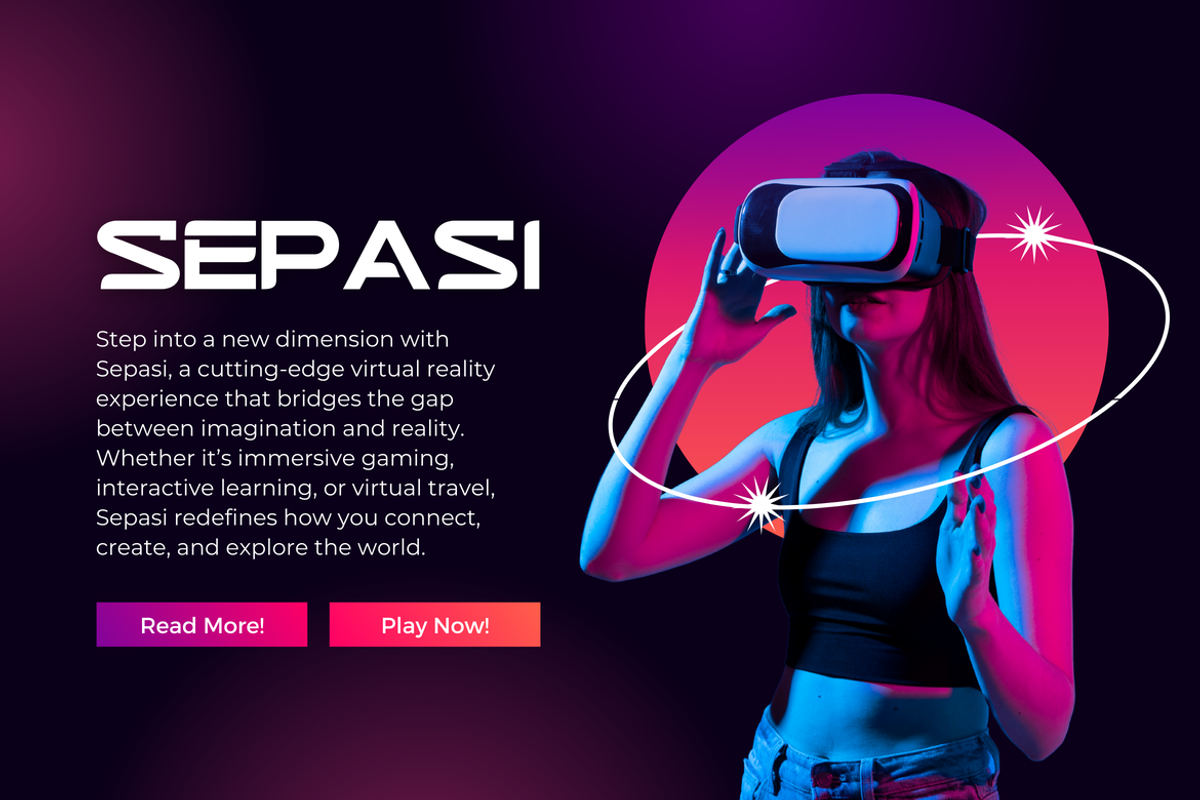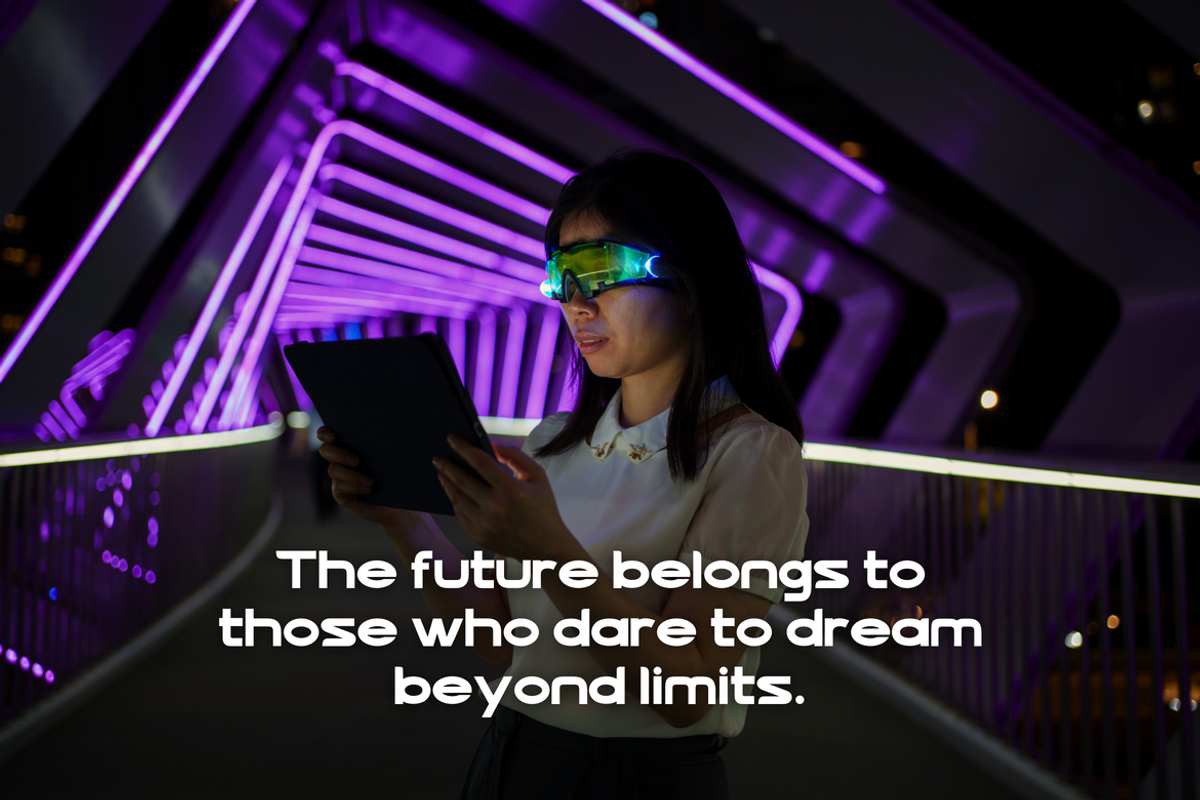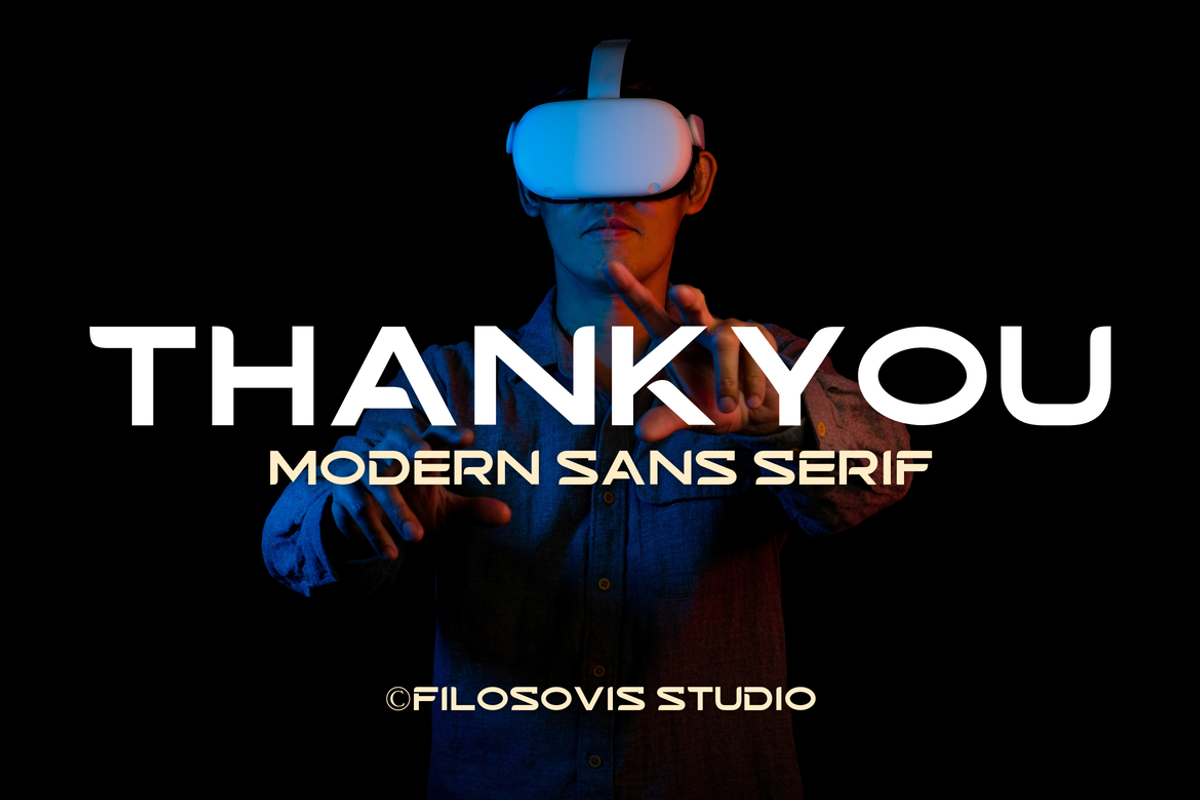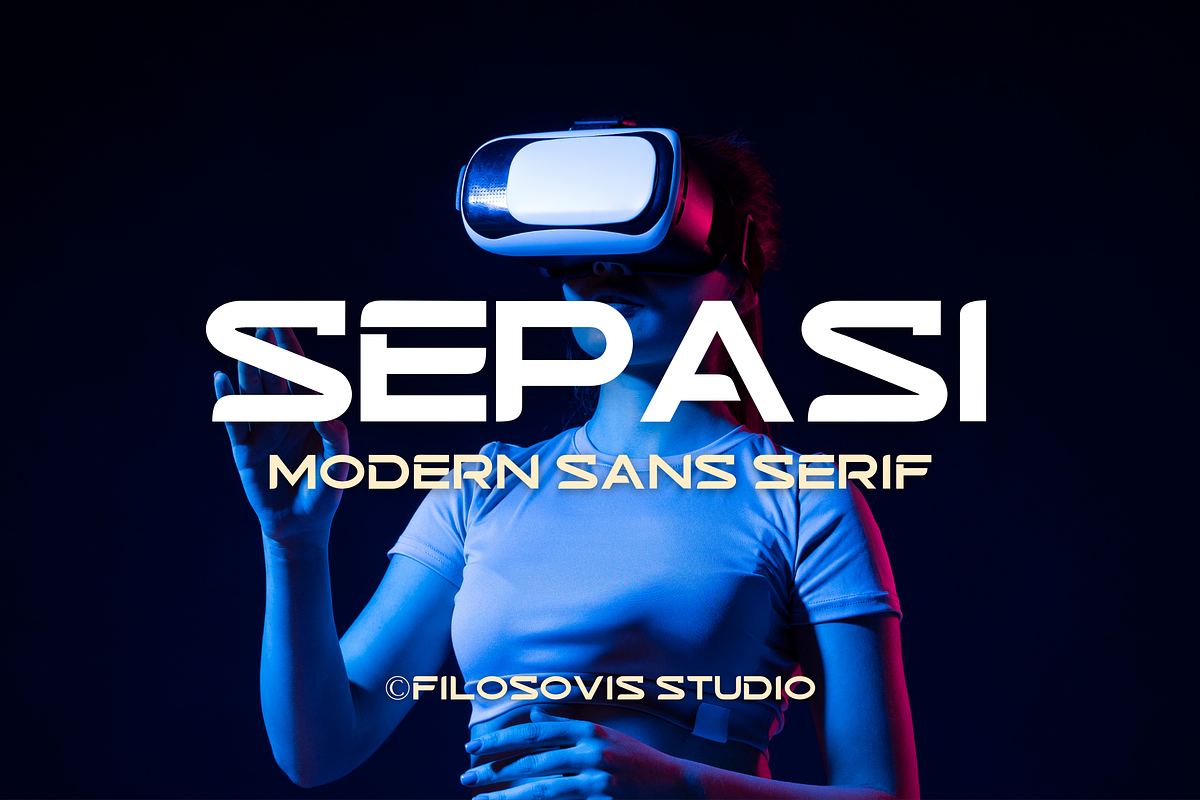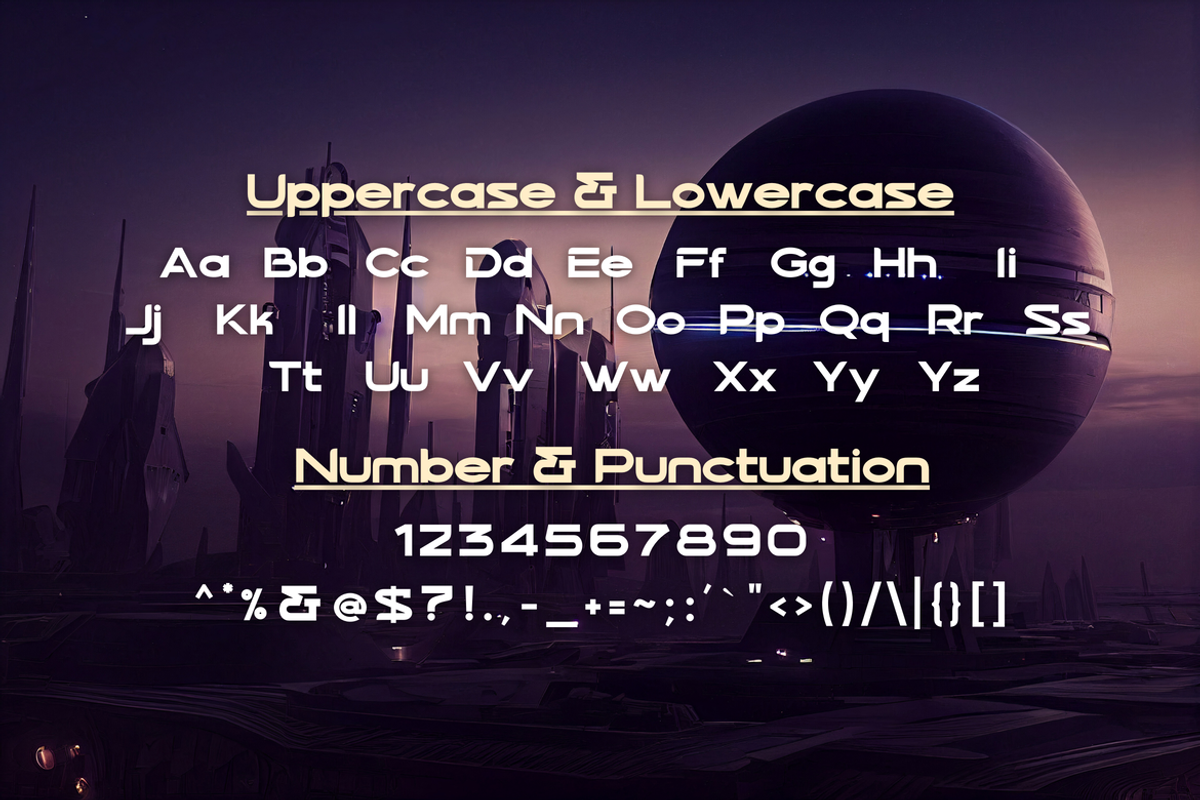
Sepasi | Modern Sans Serif
Introducing Sepasi – a superior, modern display font that articulates versatility at its best, bridging the gap between print and digital realms effortlessly. Effortlessly versatile, Sepasi transcends traditional typeface boundaries, making it an outstanding choice for brand identities, logo designs, and website typography.